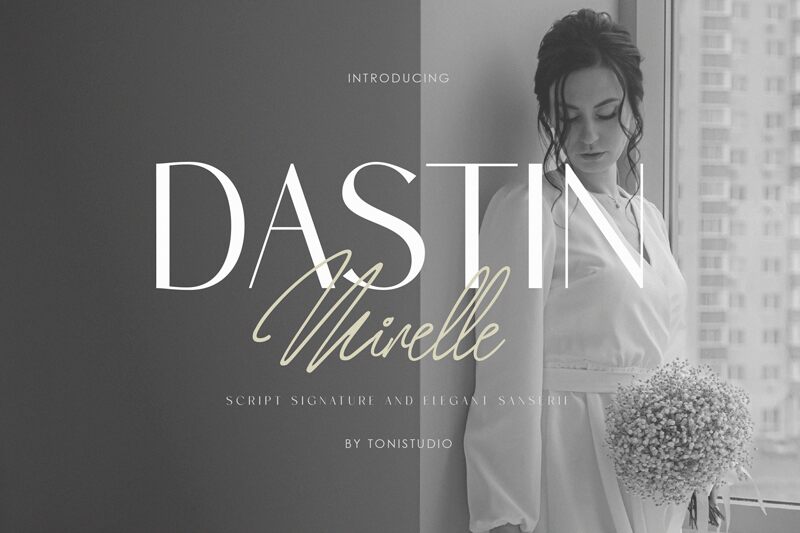
Mirelle Script font family by ToniStudio is a free font handwritten font family with an elegant aura. It combines refinement, sophistication, and fashion in a harmonious and graceful manner, making it suitable for different projects that need a contemporary feel. Its delicate glyph lines connect each letterform, and its characters vary between thick to thin, novel to old-fashioned. In total, Mirelle Script features 4 astonishing font styles within the family.
Incorporate it and its various styles into packaging and labels for organic food products. Use them for your handwritten book covers, stationery designs, and magazine headers, or create classy business cards. It looks just as remarkable in branding and packaging projects. Other possible usages are greeting cards, wrapping papers, social media posts/cover images, branding, and much more.